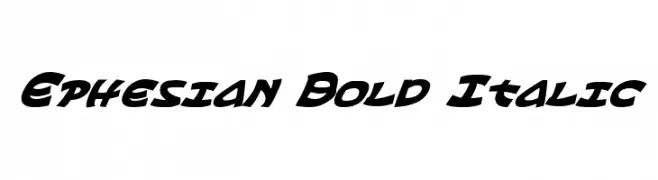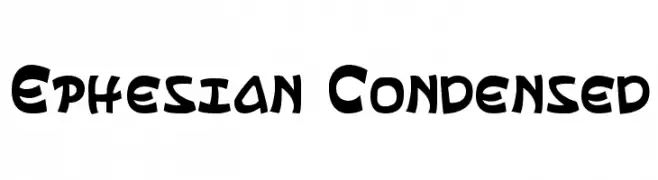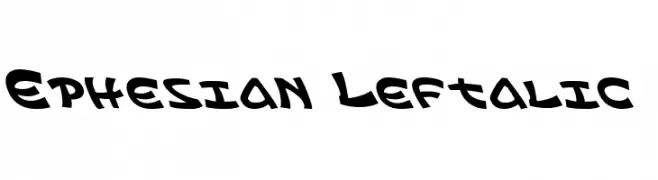
A bold, 3D italic font with a playful and dynamic style.
A bold, playful font with a dynamic, graffiti-inspired style.
A bold, italicized font with a dynamic and modern style.
A bold, playful font with rounded, irregular shapes and a whimsical style.
A bold, condensed, and italic font with high contrast and dynamic style.
A bold, playful, and condensed font with a retro-modern appeal.
A bold, condensed, and italicized font with a dynamic and modern style.
A bold, italic font with dynamic curves and a flowing style.
A playful, bold font with a leftward slant and rounded, exaggerated curves.